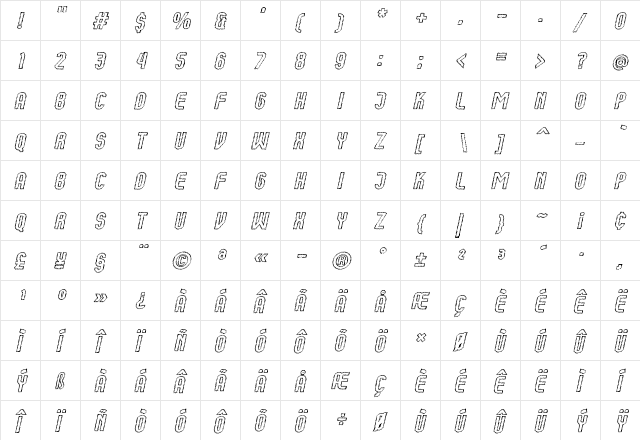
Kumba Sketch Outline Italic
| Style | Sketch Outline Italic |
| Foundry | Audry Kitoko Makelele |
| Designer | Audry Kitoko Makelele |
Design Context for Kumba Typeface
Kumba brings ornamental detail and strong personality to headlines and identities, where visual impact matters more than quiet functionality. The dynamic lean of this cut emphasises speed and emphasis in any layout.
Font Pairing: Pair with a clean neutral sans-serif for body copy to let Kumba's character lead without overwhelming the composition.
Pro Tip: Use Kumba exclusively at display sizes — it was designed to be seen, not read at length. Let a neutral companion handle body copy.